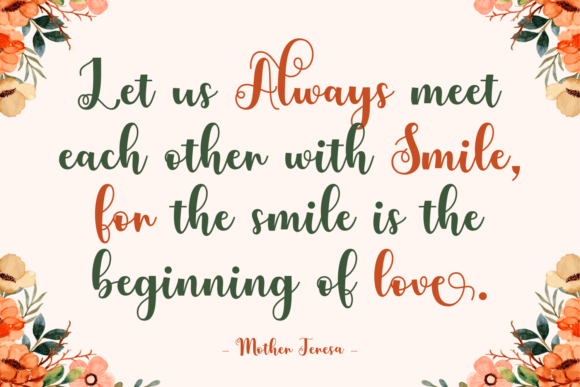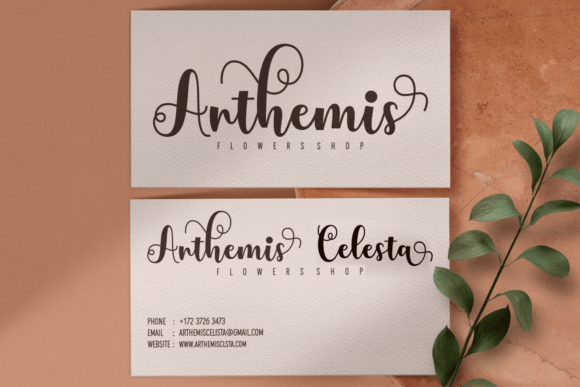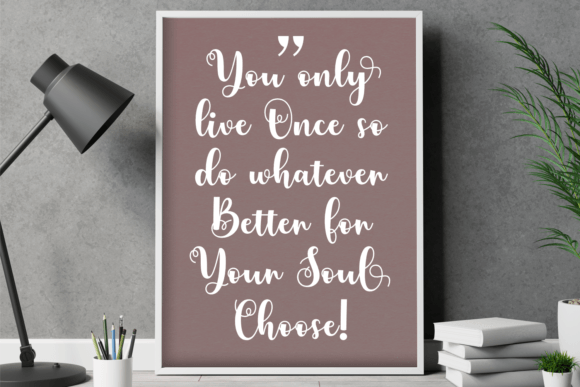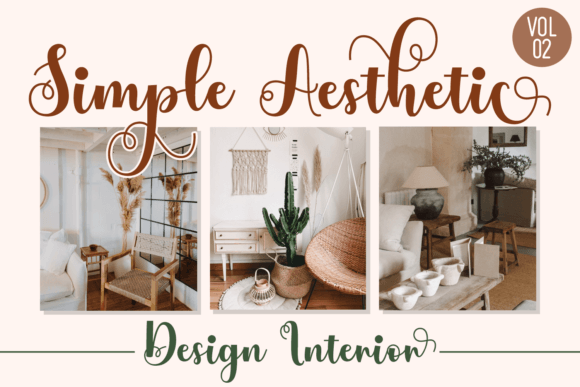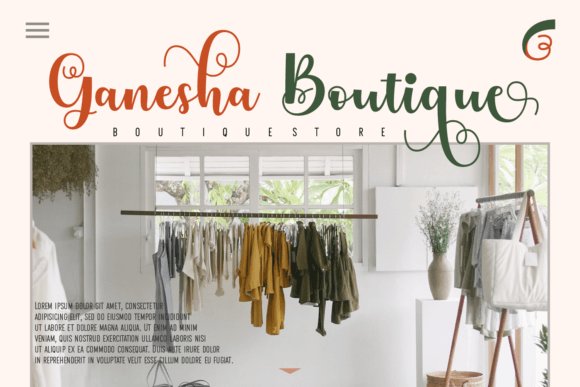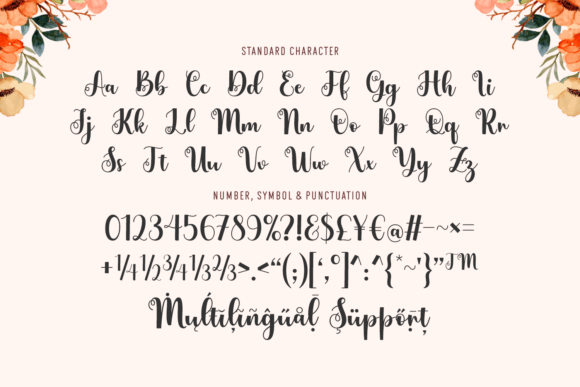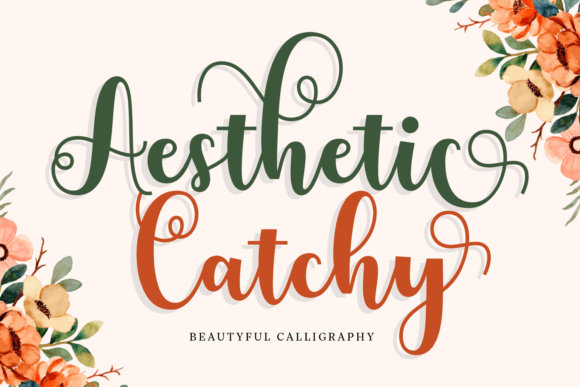
Aesthetic Catchy Font: Elevate Your Designs with Stunning Calligraphy
Are you tired of using the same old fonts in your designs? Do you want to add a touch of elegance and sophistication to your creations? Look no further than the Aesthetic Catchy font, a stunning calligraphic font that is sure to take your designs to the next level.
What is Aesthetic Catchy Font?
Aesthetic Catchy is a beautiful calligraphic font that features extra swirls and bold, flowing characters. This font is perfect for designers and crafters who want to add an enchanting note to their creations. With its unique and elegant design, Aesthetic Catchy is sure to make your designs stand out from the crowd.
Key Features of Aesthetic Catchy Font
• Stunning Calligraphic Design: Aesthetic Catchy features a beautiful calligraphic design that is sure to add a touch of elegance to your designs.
• Extra Swirls and Flourishes: The font features extra swirls and flourishes that add a touch of sophistication to your designs.
• Bold and Flowing Characters: The bold and flowing characters of Aesthetic Catchy make it perfect for headlines, titles, and other design elements.
• PUA Encoded: The font is PUA encoded, which means you can easily access all the glyphs and swashes with ease.
Why Use Aesthetic Catchy Font?
There are many reasons why you should use Aesthetic Catchy font in your designs. Here are a few:
• Adds Elegance and Sophistication: Aesthetic Catchy adds a touch of elegance and sophistication to your designs, making them perfect for high-end clients or special projects.
• Versatile: The font is versatile and can be used in a variety of designs, from wedding invitations to branding and packaging.
• Unique: Aesthetic Catchy is a unique font that will make your designs stand out from the crowd.
Design Ideas Using Aesthetic Catchy Font
Here are a few design ideas that you can use Aesthetic Catchy font for:
• Wedding Invitations: Use Aesthetic Catchy to create beautiful wedding invitations that will set the tone for the big day.
• Branding and Packaging: Use the font to create elegant and sophisticated branding and packaging for your clients.
• Social Media Graphics: Use Aesthetic Catchy to create eye-catching social media graphics that will grab the attention of your followers.
• Logos: Use the font to create elegant and sophisticated logos for your clients.